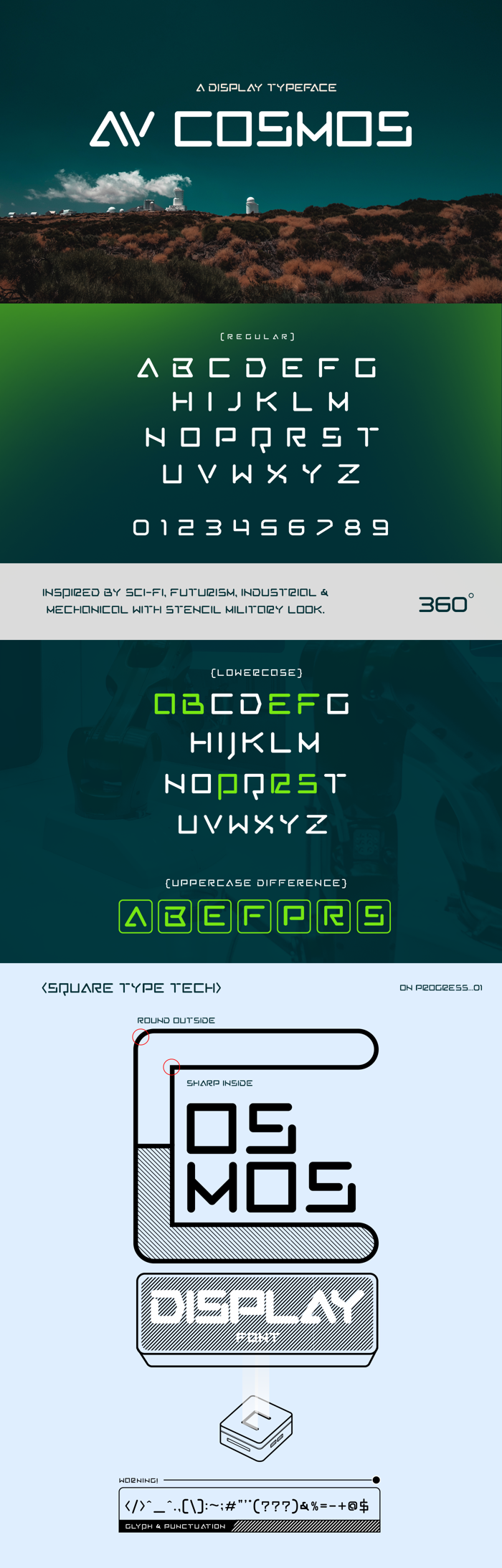
AV Cosmos Font
AV Cosmos is a futuristic style fonts for display, it has a rounded corner to make a human feeling, not too serious thing. It's good for fun science related content.